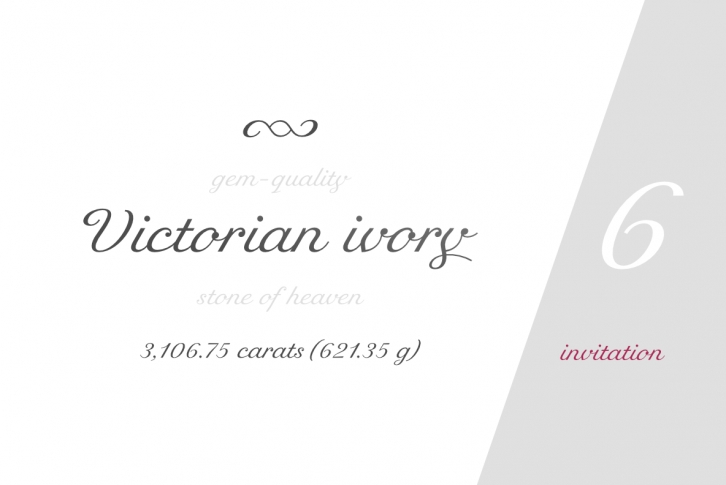
Victorian Ivory is a lovely script font featuring charming, playful characters that seem to dance along the baseline. Add this font to your most creative ideas, and notice how it makes them stand out!